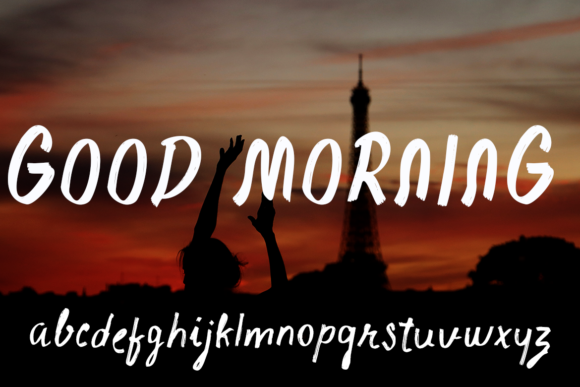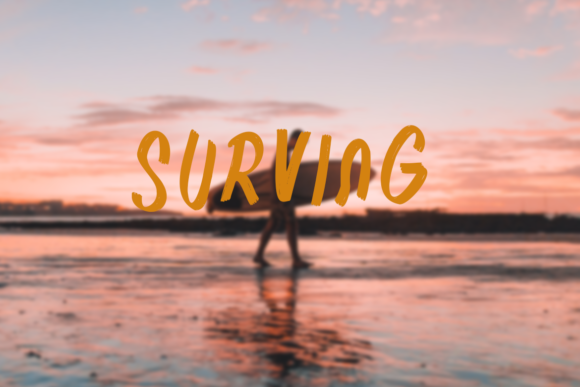
Introducing Damar Font: Unleash Your Creativity with a Handwritten Rough Brush Font
Are you tired of using the same old fonts for your design projects? Look no further! Damar Font is here to revolutionize your creative workflow with its unique, handwritten rough brush style. This slanted font is designed to add a touch of raw, artistic flair to your designs, making it perfect for a wide range of applications.
What Makes Damar Font Special?
Damar Font boasts a distinctive, rough brushstroke style that gives it a truly one-of-a-kind look. The slanted design adds a sense of dynamism and energy, making it ideal for projects that require a bold, eye-catching font. With Damar Font, you can add a touch of personality to your designs and make them stand out from the crowd.
So, what can you do with Damar Font? The possibilities are endless! Here are just a few ideas to get you started:
• Logo Design: Create a memorable brand identity with a custom logo that incorporates Damar Font. The rough brushstroke style adds a touch of ruggedness and authenticity, making it perfect for brands that want to stand out.
• Social Media: Add a personal touch to your social media posts with Damar Font. Use it to create eye-catching captions, headers, or even entire posts that showcase your brand’s personality.
• Movie Titles: Give your film or video project a cinematic look with Damar Font. The slanted design and rough brushstrokes evoke a sense of drama and excitement, making it perfect for movie titles, trailers, or even credits.
• Books Titles: Add a touch of elegance and sophistication to your book covers with Damar Font. The font’s unique style works well for both fiction and non-fiction titles, and can help your book stand out on bookshelves.
• Short and Long Text: Whether you’re working on a short phrase or a lengthy paragraph, Damar Font is up to the task. Use it for headings, subheadings, or even body text to add visual interest and personality to your designs.
Pairing Damar Font with Other Fonts
One of the best things about Damar Font is its versatility. It can be paired with a wide range of fonts to create a unique and harmonious design. Here are a few suggestions:
• Sans Serif Fonts: Pair Damar Font with a clean sans serif font, such as Arial or Helvetica, to create a striking contrast between rough and smooth.
• Serif Fonts: Combine Damar Font with a classic serif font, such as Times New Roman or Georgia, to add a touch of sophistication and elegance to your design.
Tips for Getting the Most Out of Damar Font
To make the most of Damar Font, here are a few tips to keep in mind:
• Experiment with Sizes: Don’t be afraid to play around with different font sizes to create visual interest and hierarchy in your design.
• Use it Sparingly: While Damar Font is a beautiful font, it can be overwhelming if used excessively. Use it sparingly to create emphasis and add personality to your design.
• Color Matters: Choose colors that complement the rough, brushstroke style of Damar Font. Earthy tones, bold brights, and deep jewel tones work particularly well.
Font Name Damar Font
Author saiffud12
In conclusion, Damar Font is a game-changer for designers and crafters looking to add a touch of personality and creativity to their projects. With its unique, handwritten rough brush style and slanted design, this font is perfect for a wide range of applications, from logo design to social media and beyond. So why wait? Download Damar Font today and unleash your creativity!